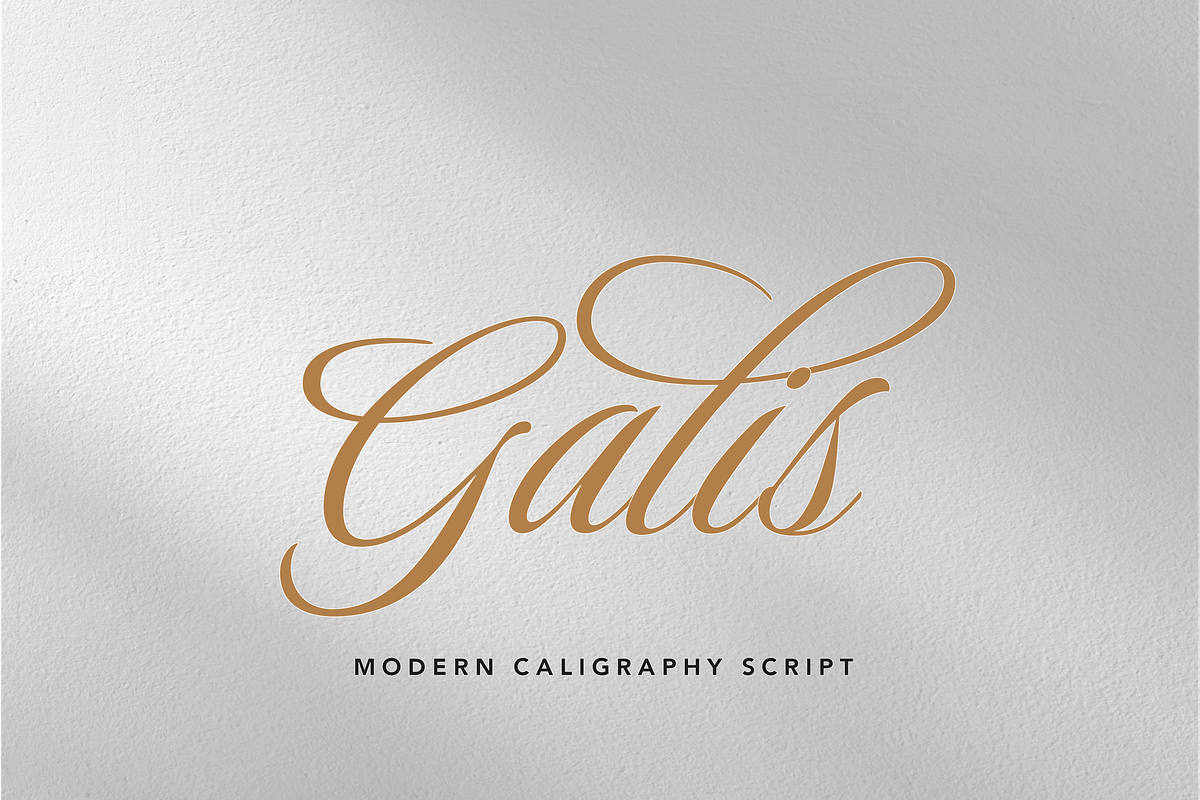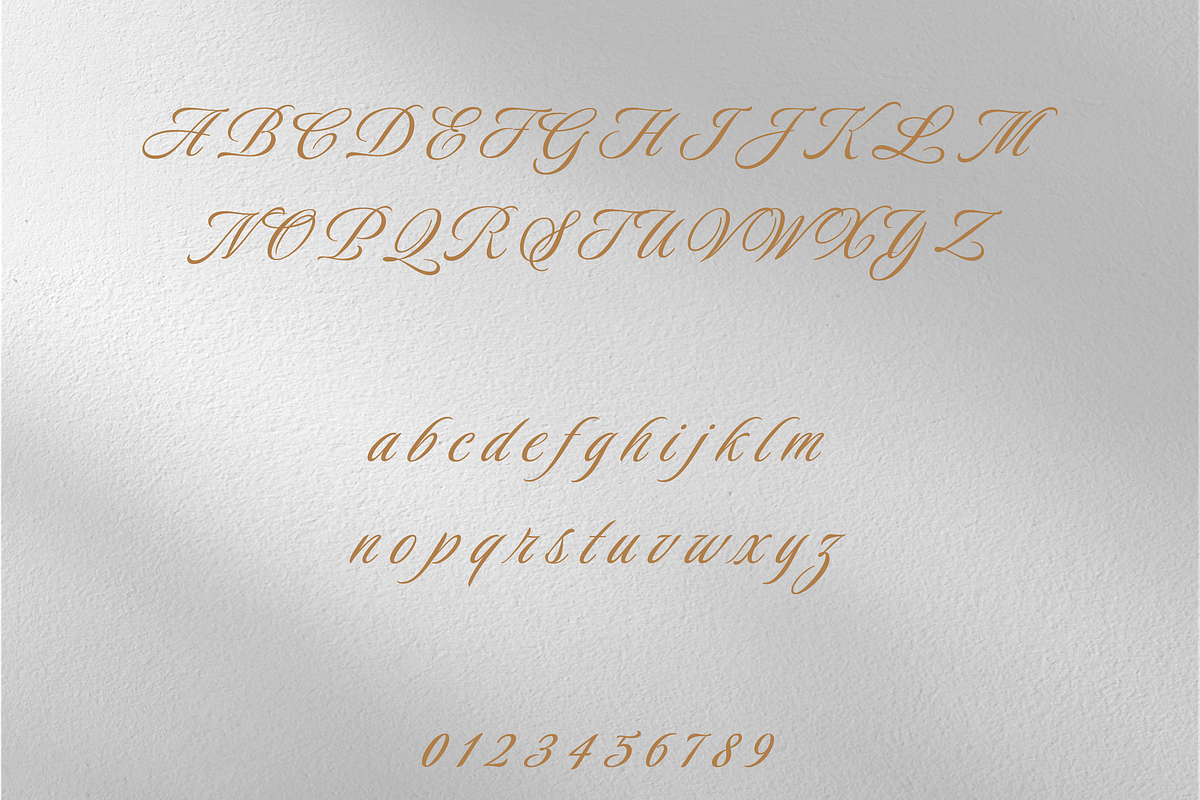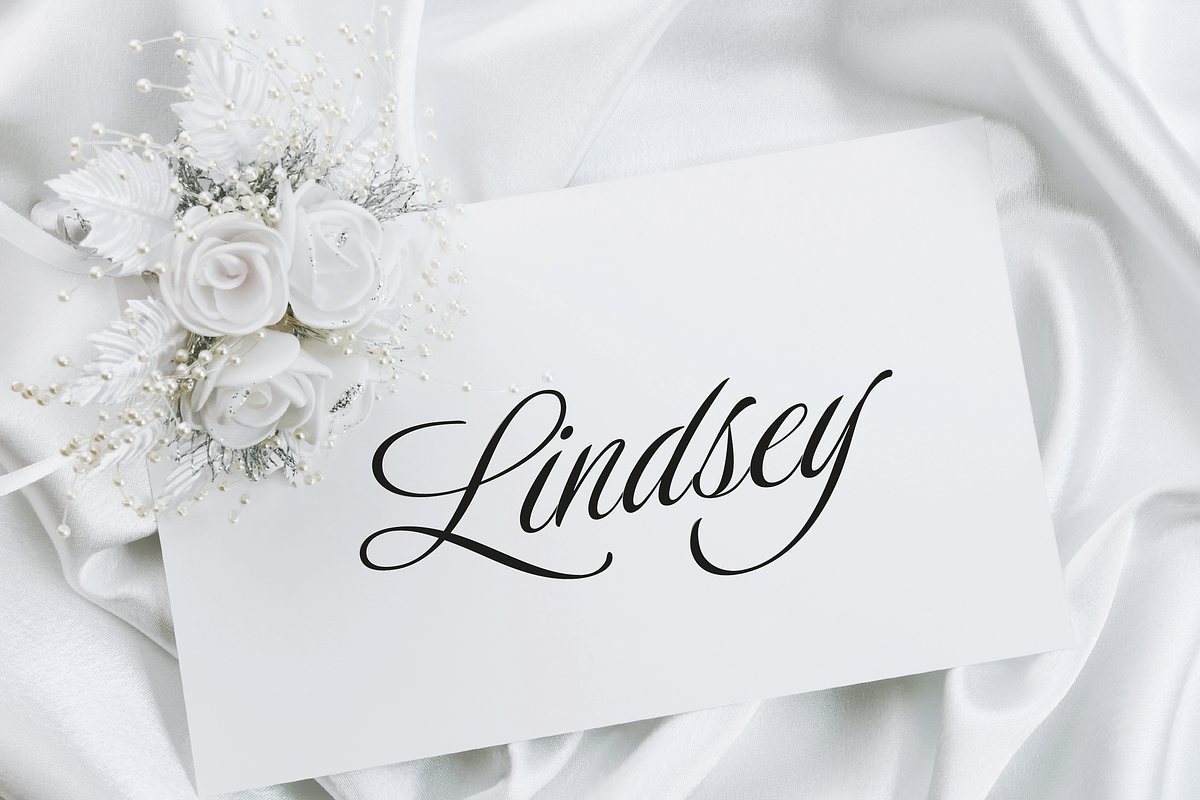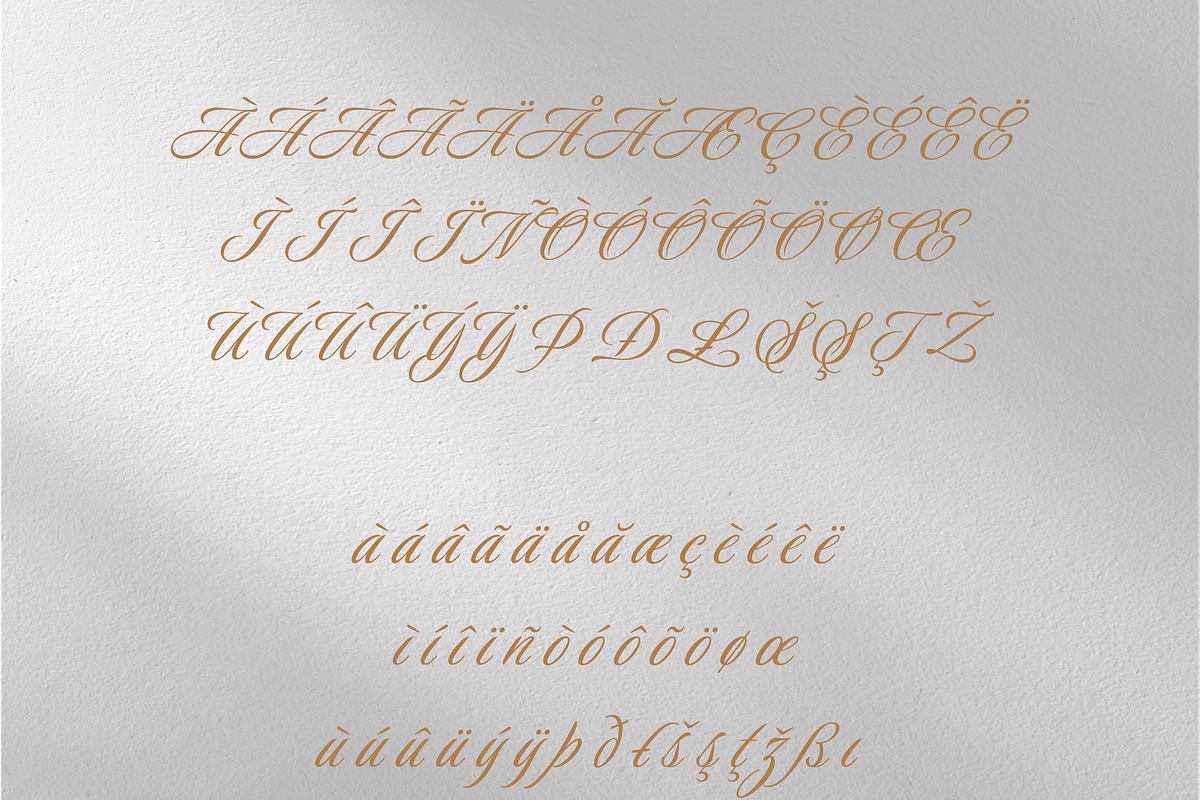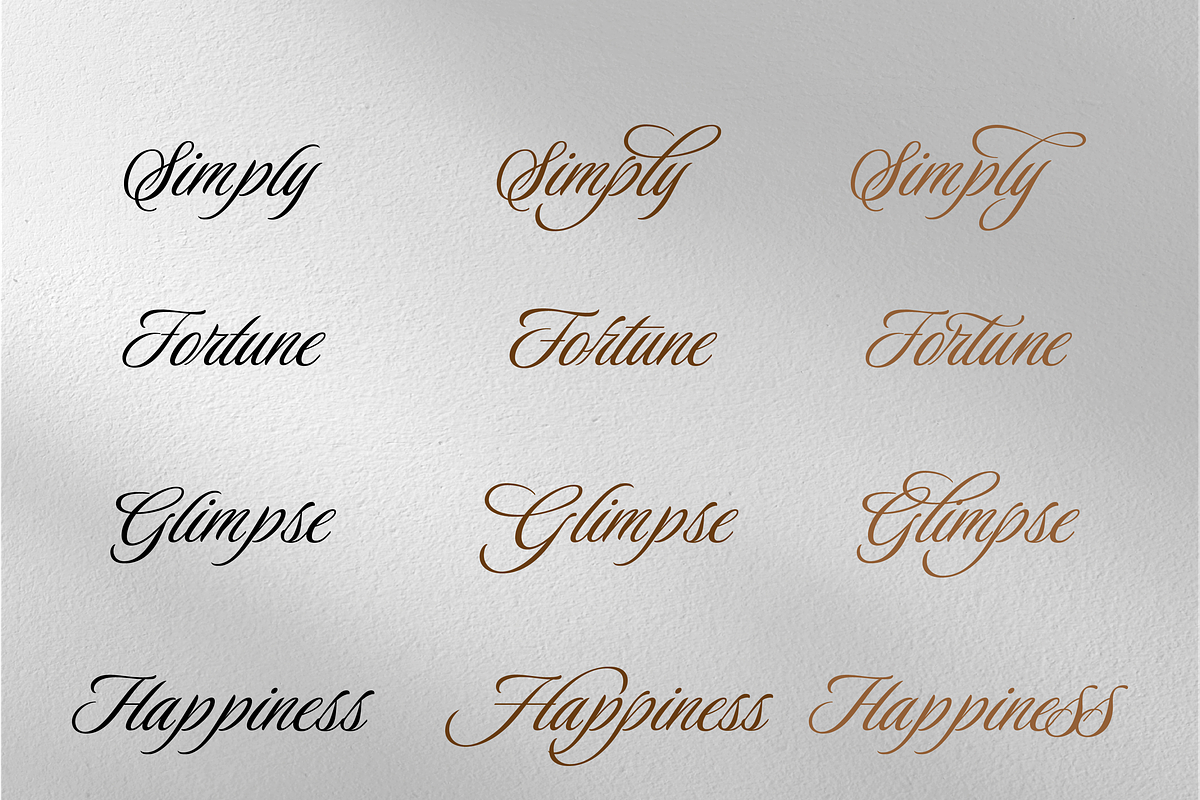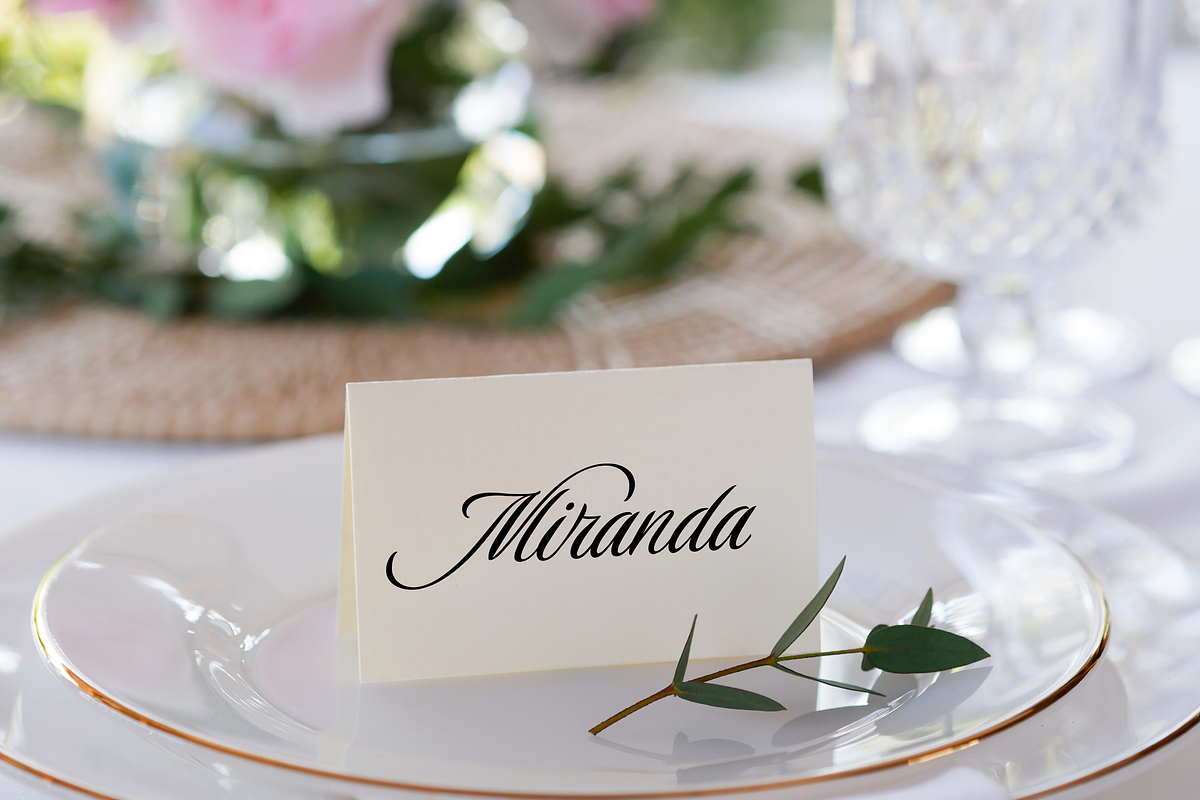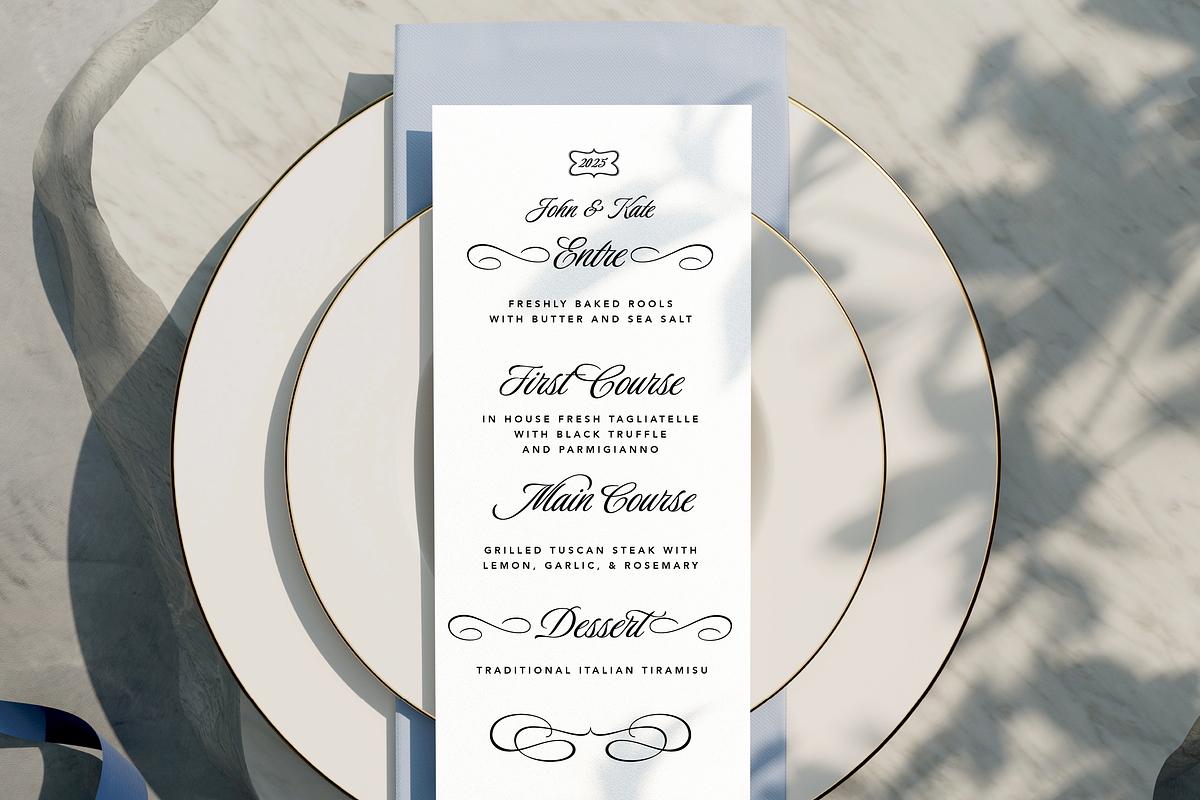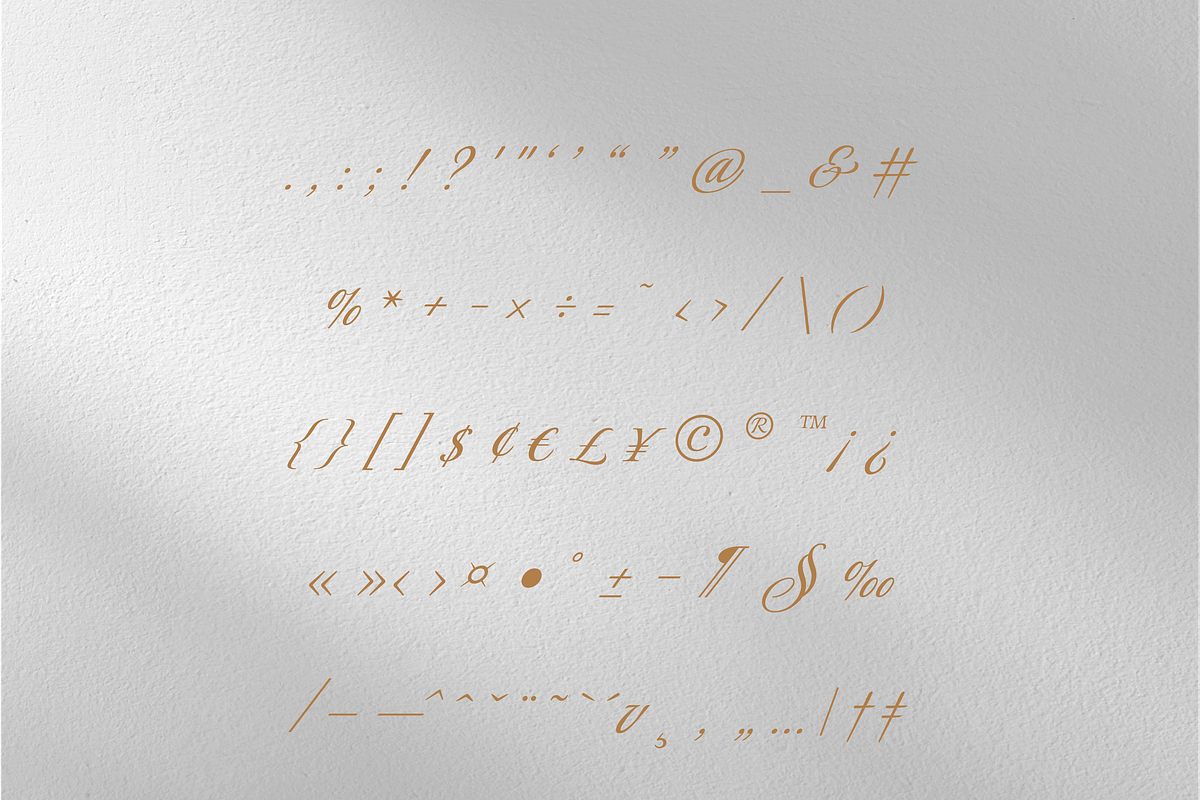
Galis Wedding Calligraphy Font
Galis – A Refined and Regal Formal Script
Galis is a stunning formal script that features highly slanted, condensed characters, creating a sense of fluidity and elegance in body text. Its graceful cursive forms ensure a seamless flow, adding a touch of sophistication and refinement to any design.